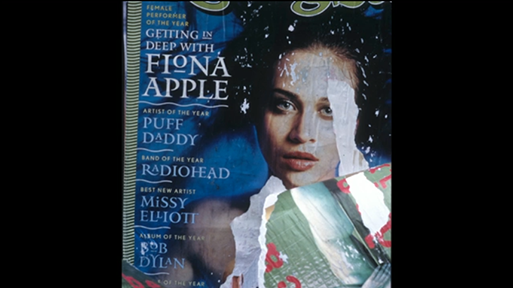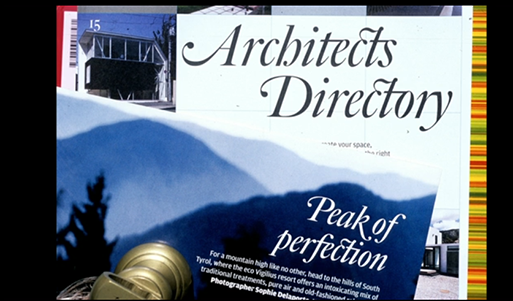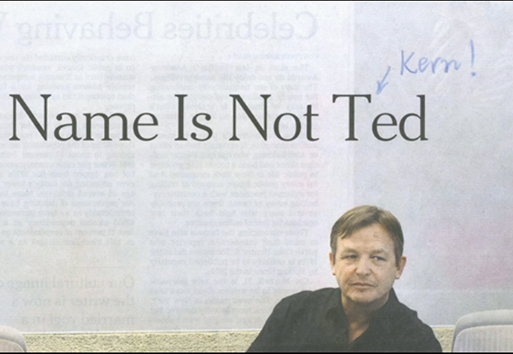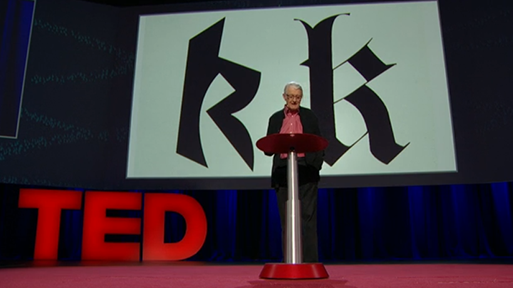
A talk between technology and type, by Matthew Carter
Pick up a book, magazine or screen, and more than likely you'll come across some typography designed by Matthew Carter. In this charming talk, the man behind typefaces such as Verdana, Georgia and Bell Centennial (designed just for phone books — remember them?), takes us on a spin through a career focused on the very last pixel of each letter of a font. So let's do some good to ourselves by watching this inspiring video.